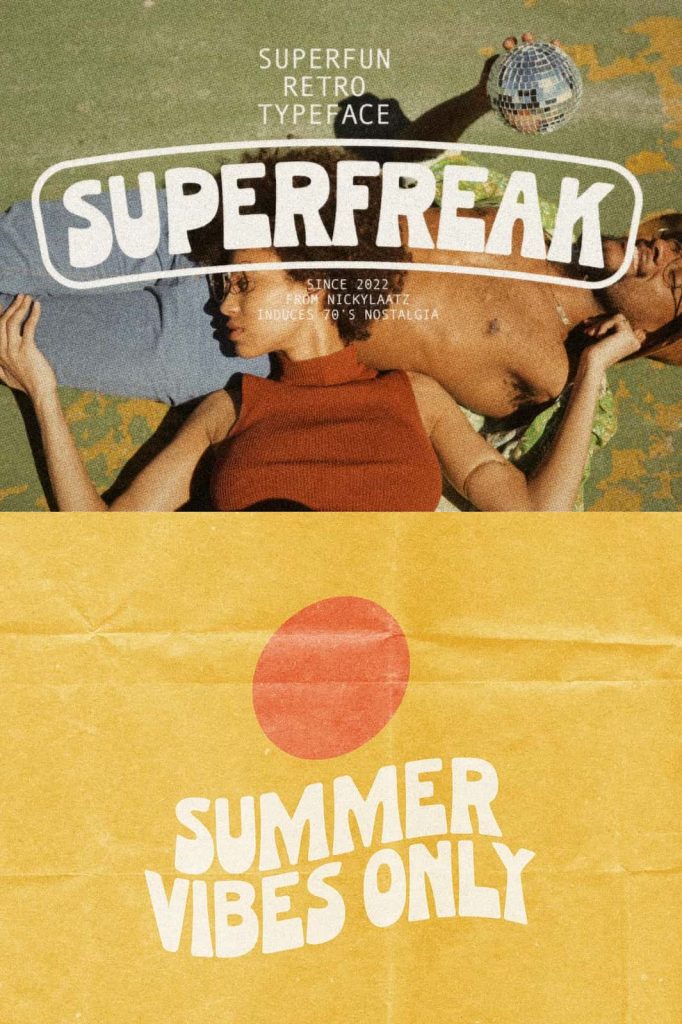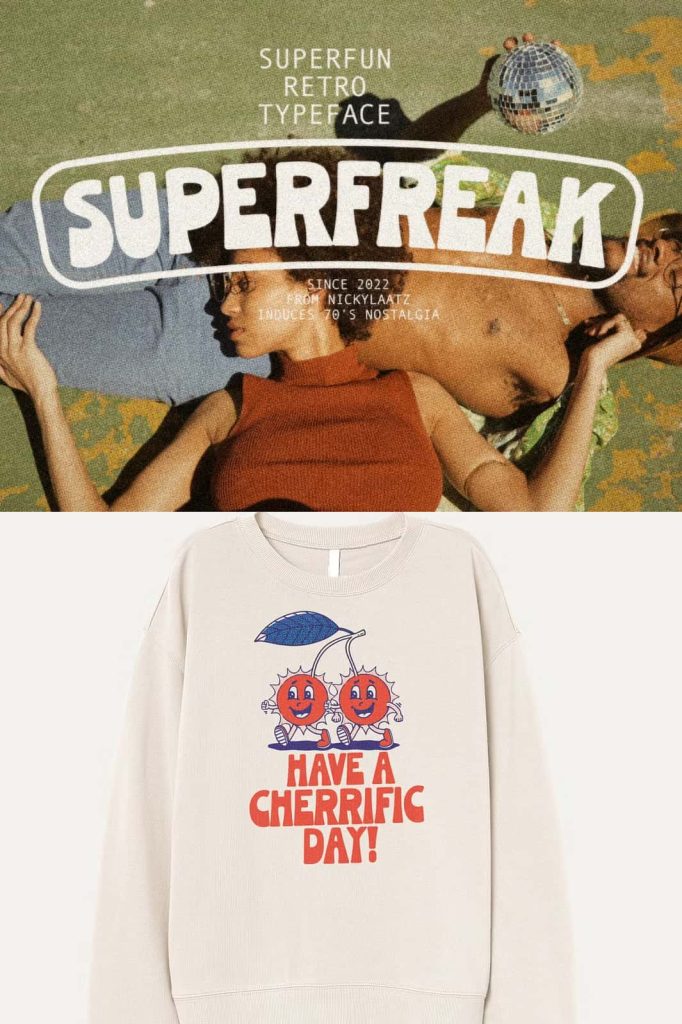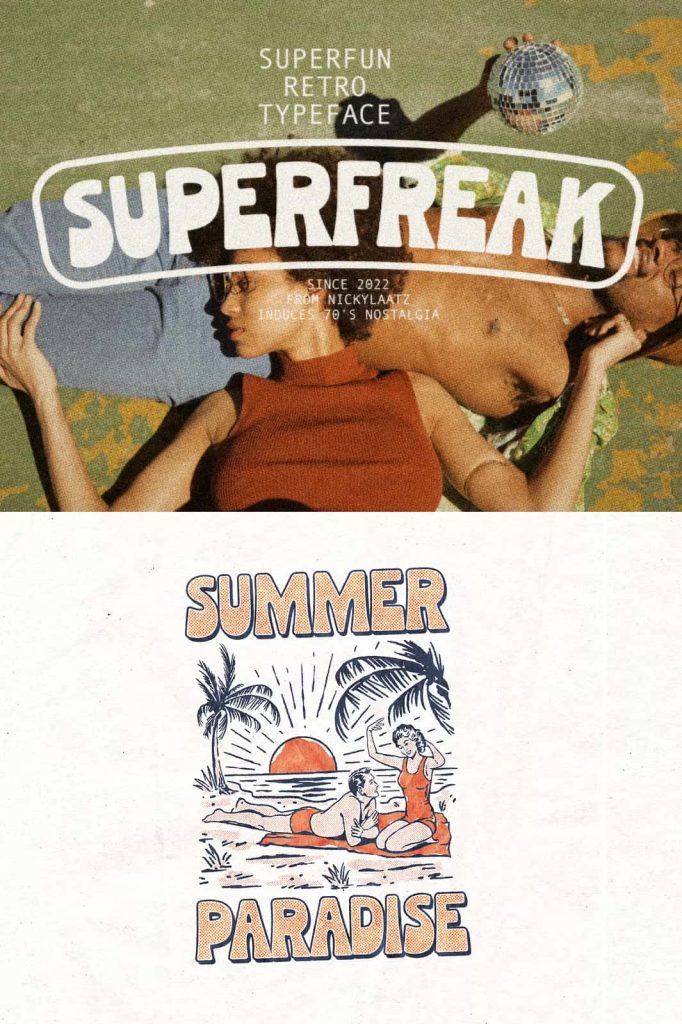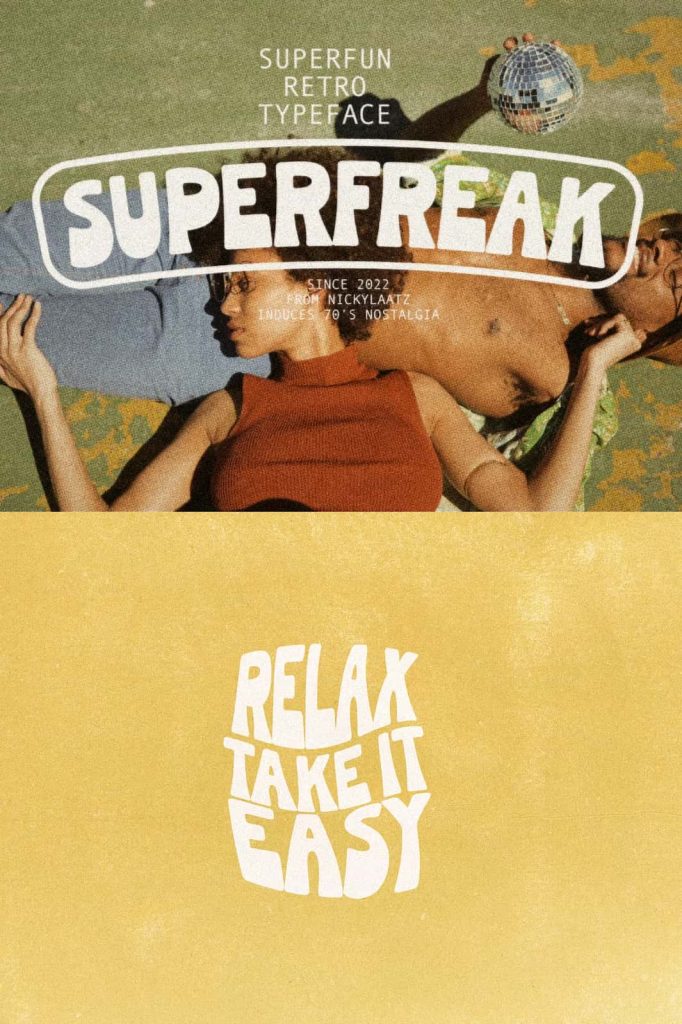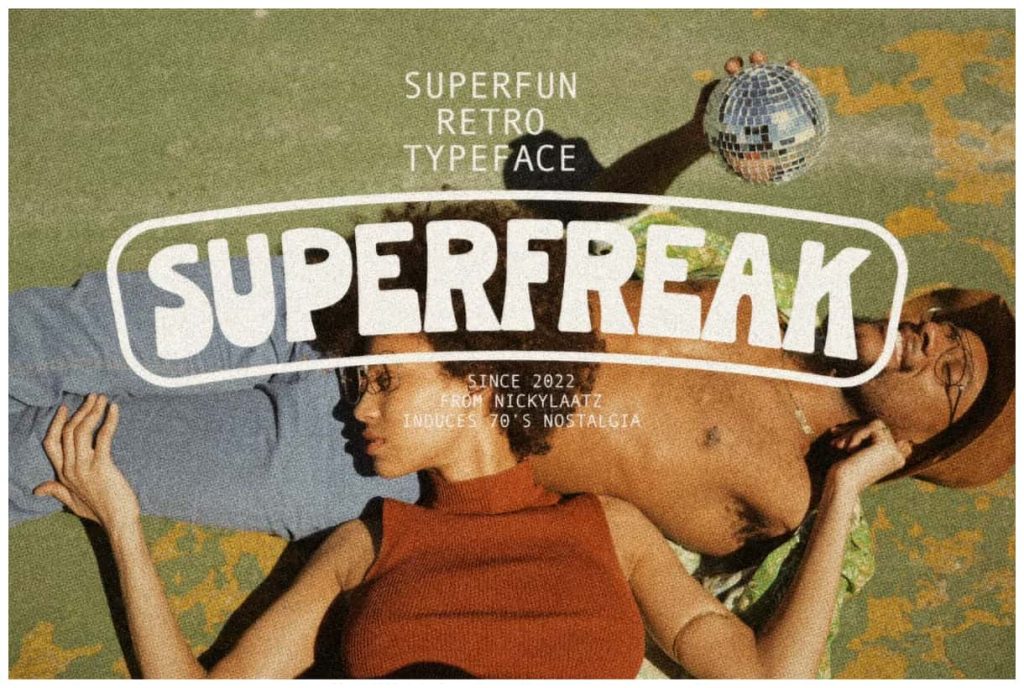
Superfreak FontleastedMarch 4, 2025Fonts Say hello to Superfreak! Inspire some retro fun with an all-caps, 70’s inspired font complete with groovy bellbottoms! Download